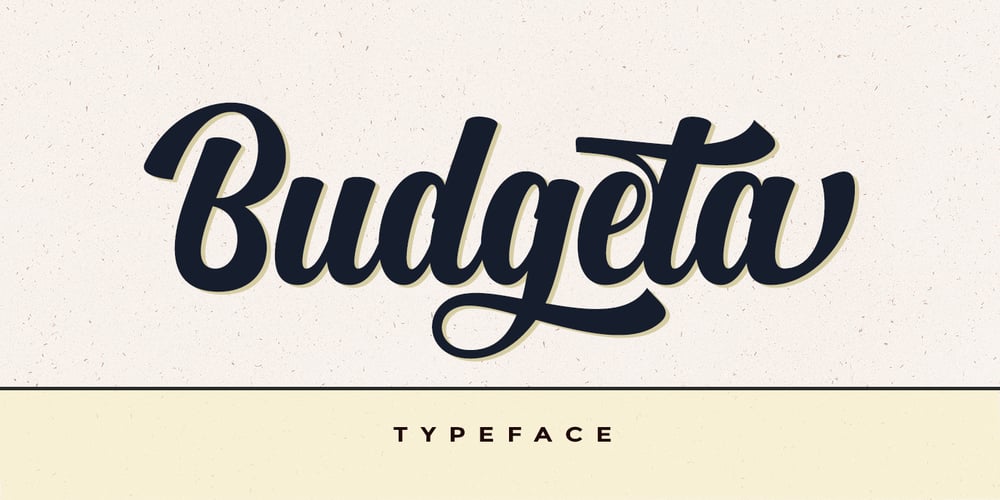
Budgeta Script
Budgeta Script font
Budgeta Script Font Family was designed by Rizki Andika and published by Letterfreshstudio. Budgeta Script contains 1 styles and family package options. Budgeta is a modern script typeface. It contains a complete set of lowercase, uppercase, alternative, ligatures, punctuation, numbers, and multilingual support. Works in harmony with other fonts to make calligraphy creations. Budgeta is suitable for various purposes: logos, wedding invitations, titles, signatures, t-shirts, letterheads, signboards, labels, posters etc.How to access all alternative characters, using Windows Character Map with Photoshop:https://www.youtube.com/watch?v=Go9vacoYmBwHow to access all alternative characters using Adobe Illustrator:https://www.youtube.com/watch?v=XzwjMkbB-wQ